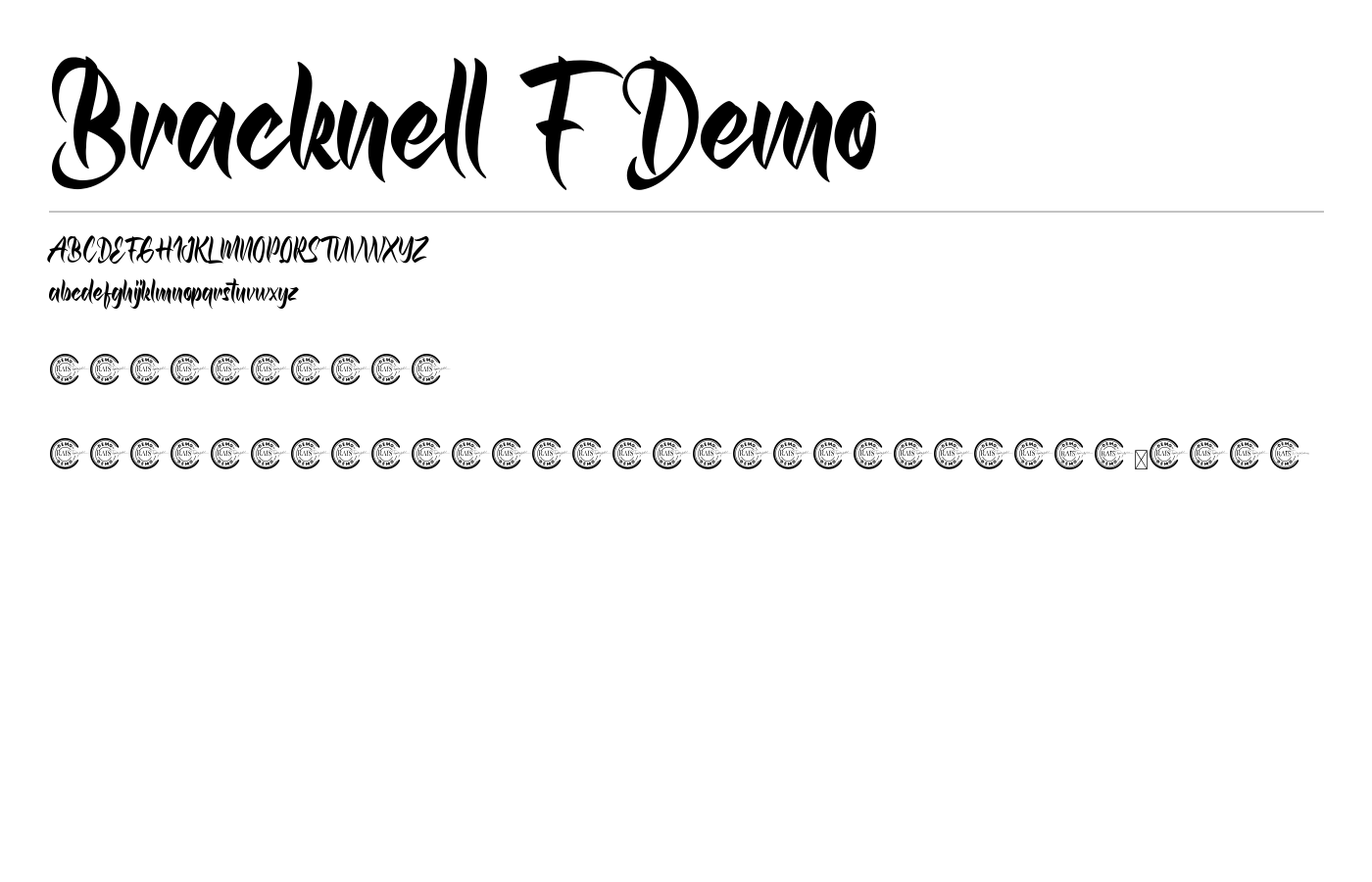
Bracknell F Demo is a bold, expressive script font with a lively, handwritten feel. Its thick and thin strokes create dynamic contrast, while the energetic letterforms add a personal and creative touch, making it ideal for branding, invitations, and eye-catching headlines. This font works best where a casual yet confident style is desired, adding warmth and flair to modern designs.
Bracknell F Demo Font
About Bracknell F Demo Font